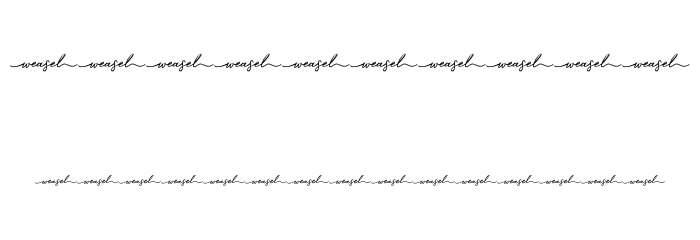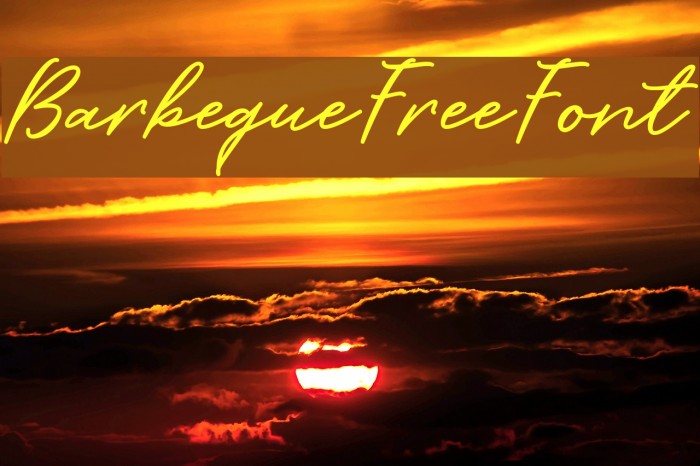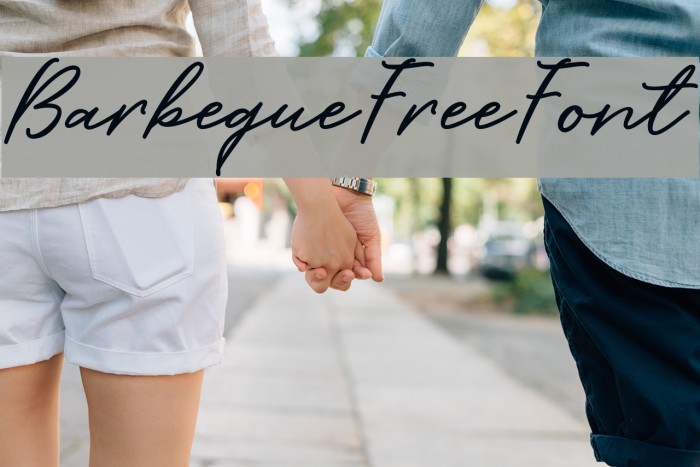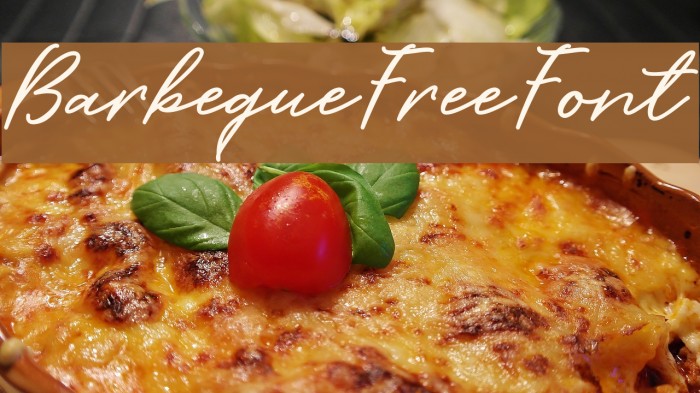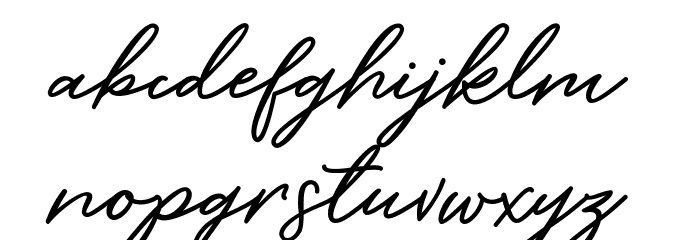
BarbequeFreeFont Font
BarbequeFreeFont Description
This font features a flowing, cursive style with elegant, sweeping strokes that give it a handwritten appearance. The uppercase letters are distinct with a slight slant, while the lowercase letters maintain a consistent flow, enhancing the script's fluidity. The characters are well-spaced, allowing for readability despite the intricate design. The font's overall aesthetic is both sophisticated and approachable, making it suitable for a variety of creative applications. Its unique charm lies in the delicate balance between formality and casual elegance, making it versatile for both personal and professional use.
A flowing, cursive script with elegant, sweeping strokes and a handwritten appearance from Uncategorized fonts.
- Proposed Projects: Ideal for wedding invitations, greeting cards, branding projects, and elegant stationery.
- Overall Style: Elegant, Handwritten
- Use Case: Logos, Invitations, Personal projects